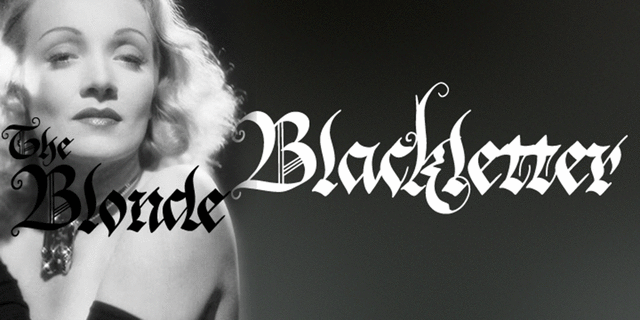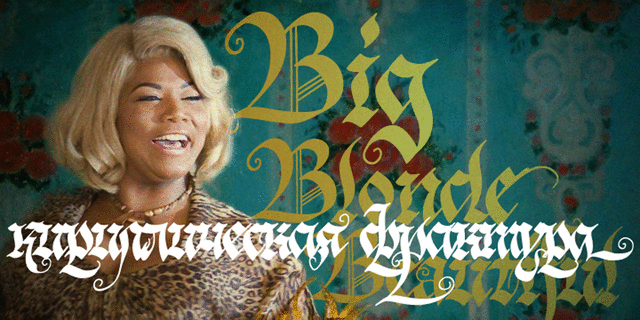
About Blonde Fraktur is a free interpretation of the Gothic theme in Cyrillic. The font is neither Fraktur nor any other Gothic script from the formal point of view, but it makes text look like Gothic script, no matter which language is used. Blonde Fraktur was written with a quill by Alexandra Korolkova and prepared in digital form by Alexandra Pushkova. The font contains a set of alternatives and swashed variations. It suits well for advertising of beer, sausages, pubs and other places where Gothic scripts are commonly used. Released by ParaType in 2010.
sharp, thorny, historical, role-playing, medieval, ancient, fairy, artistic, intricate, fanciful, interesting, original, beautiful, traditional, decorative, bushy, vegetable, forest, mysterious, complicated, mannered, fussy, magic, gothic, Gift, festive, Curly, twisted, creepy, strange, autumn, beery, pretty, nice, Artisanal, craft brewed, exotic, macabric, girlish